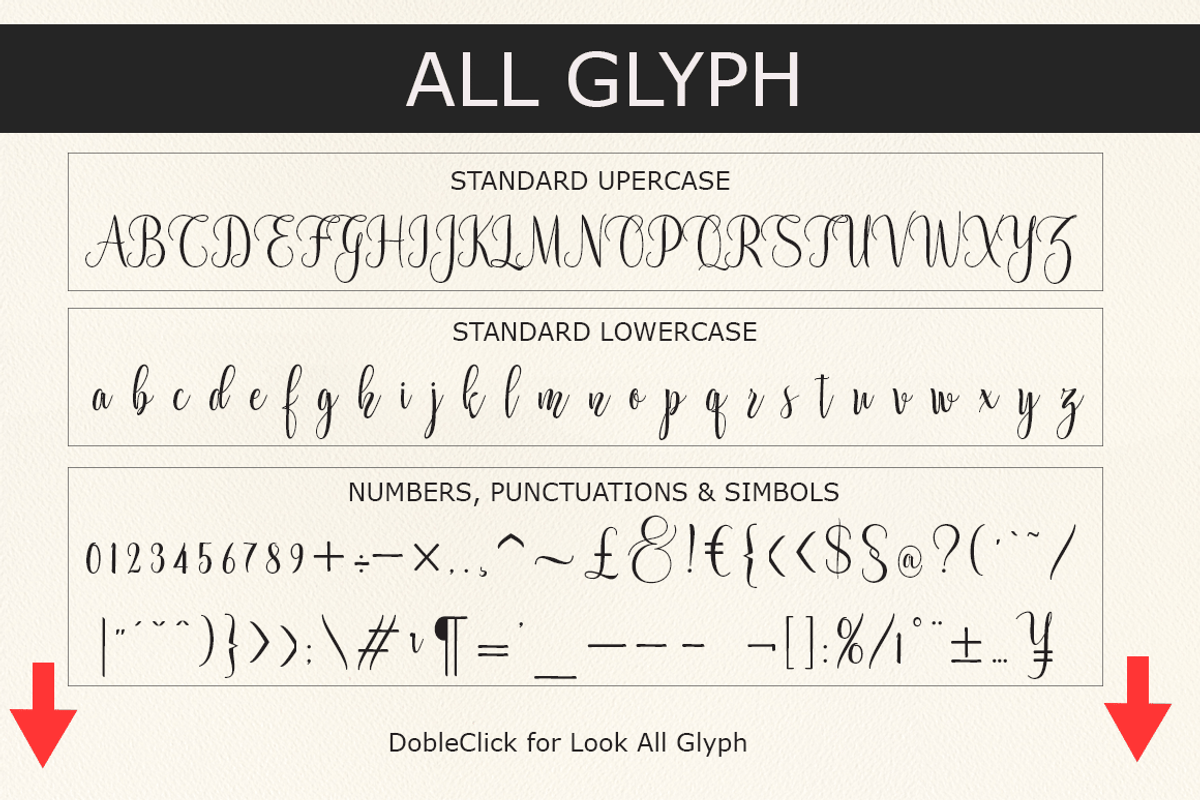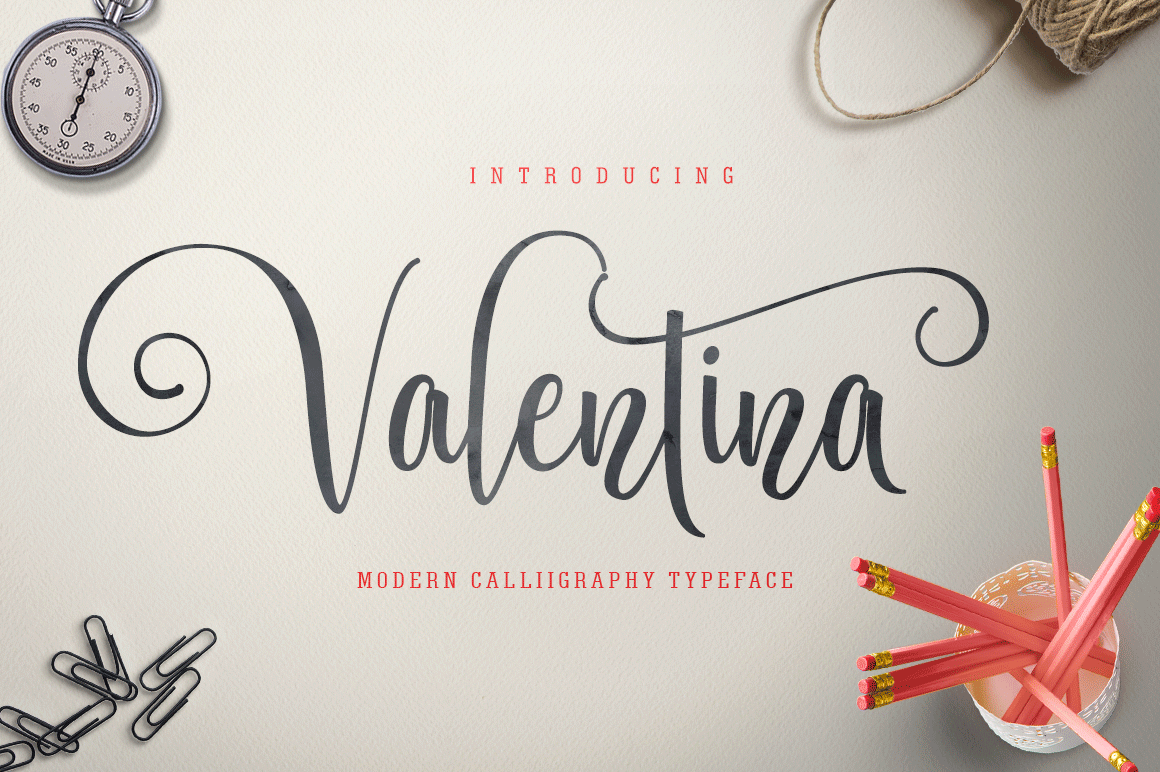
Valentina//Wedding Calligraphy Font
Valentinais a font that made the hand by having the character up and down like a dancer. Valentina has a very unique style of calligraphy, it is very suitable for use in the work of modern design. combines from copperplate to contemporary typeface with a dancing baseline, modern and elegant touch. Valentina features 531 glyphs and alternate characters Include . including initial and terminal letters, alternates, ligatures and multiple language support.
The Features of this fonts is;
- Standart ligatures
- Discretionary ligatures
- Swash Alternates
- Initial Alternates
- Terminal Alternates
- Stylistic sets
- PUA Unicode (Private Use Areas)
Languages supported: Breton, Catalan, Czech, Danish, Estonian,French, German, Hungarian, Icelandic, Italian, Romanian, Scottish Gaelic, Slovak, Latvian, Lithuanian, Norwegian, English, Finnish, Polish, Portuguese, Slovenian, Spanish, Swedish, Turkish, Welsh. Basically, all european languages that are based on latin alphabet